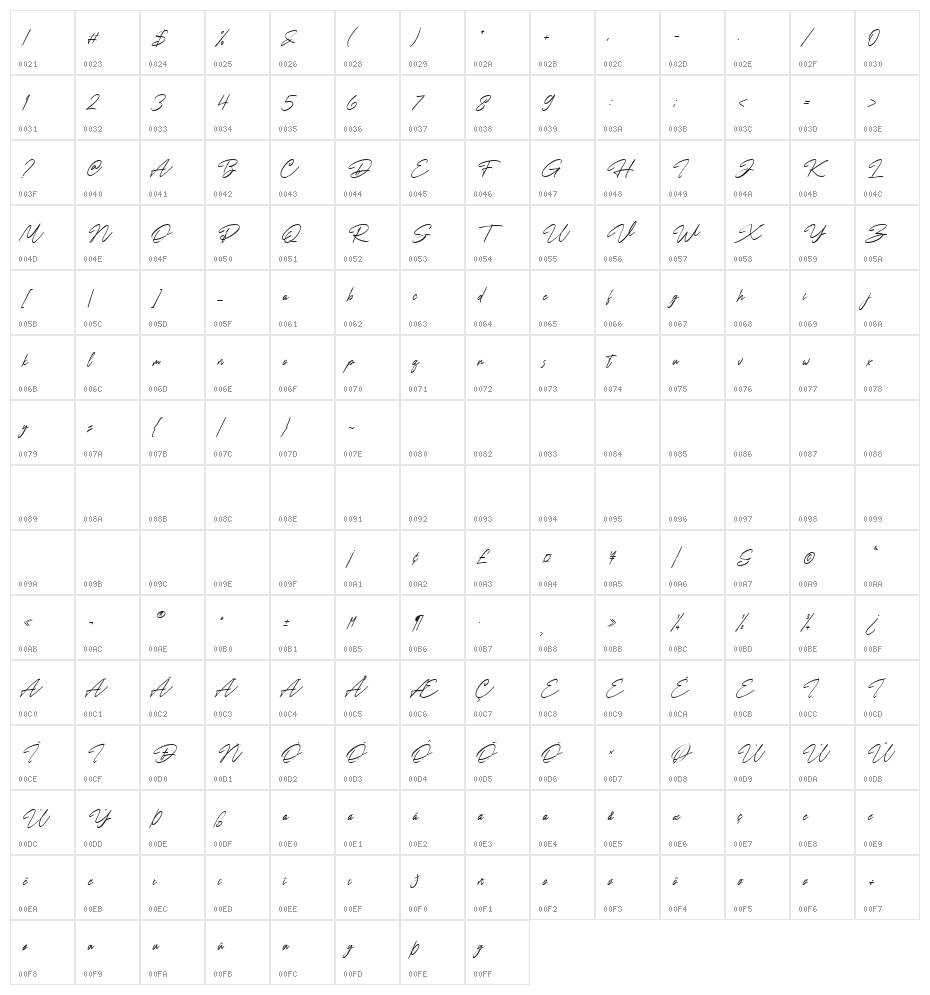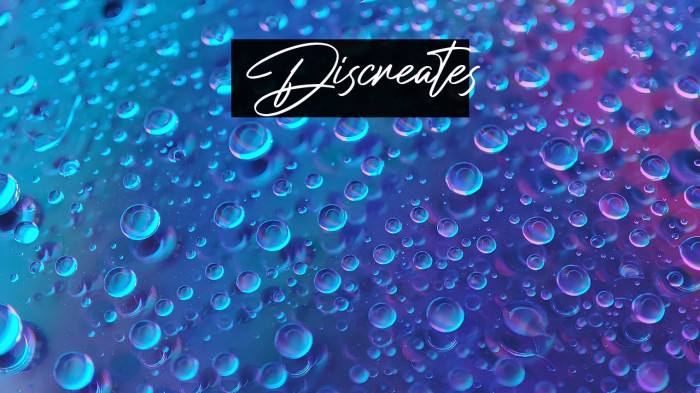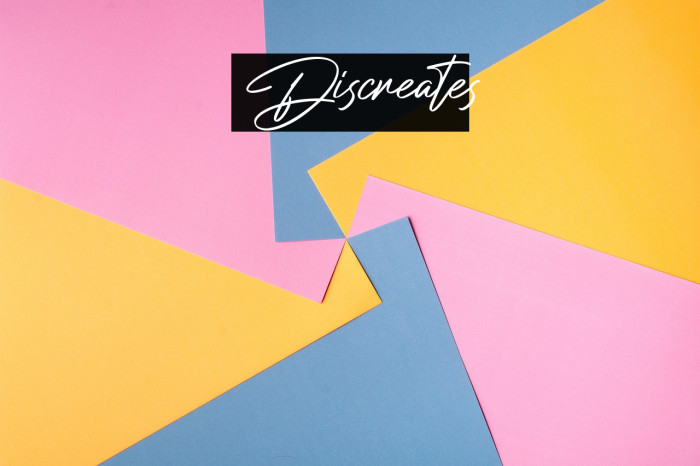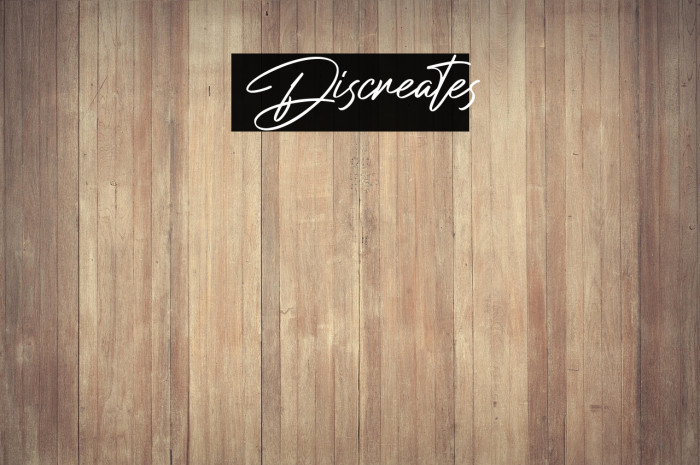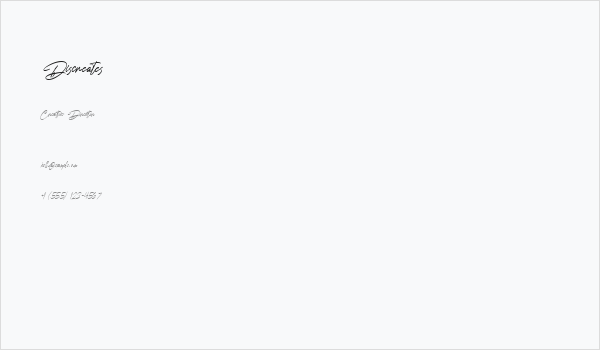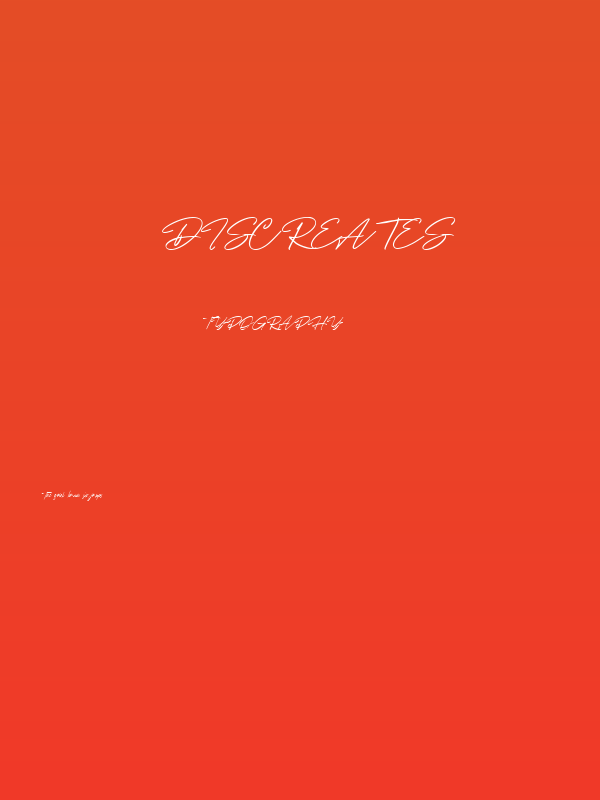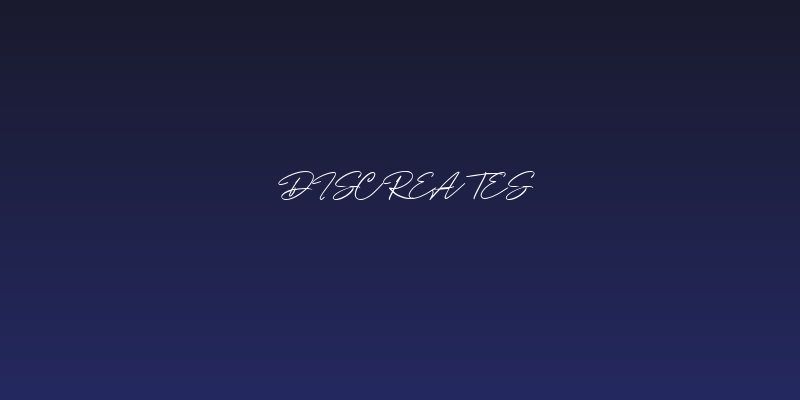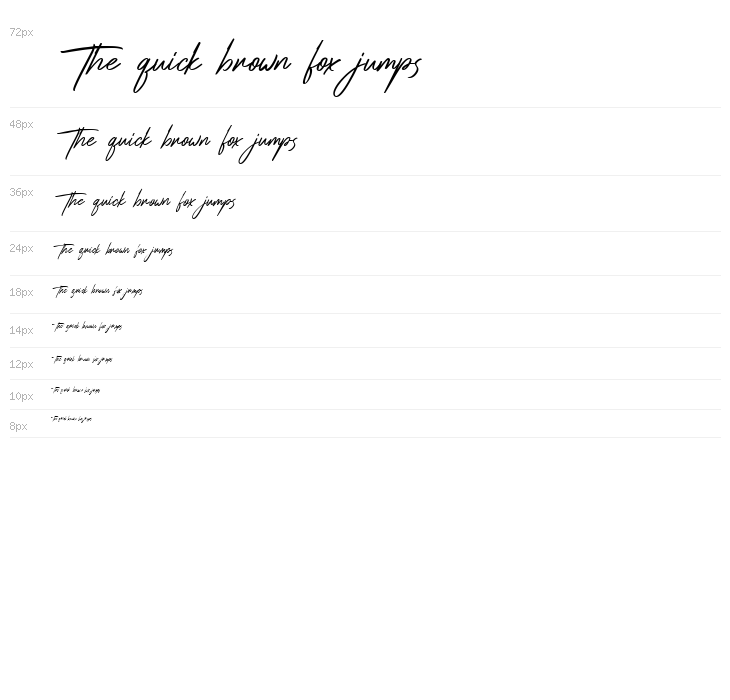
Discreates Font
Discreates Description
This elegant script font features fluid, cursive strokes that mimic natural handwriting. The uppercase letters are slightly larger and more ornate, while the lowercase letters maintain a consistent flow with gentle curves. Numbers and special characters are designed to complement the overall style, maintaining the same handwritten aesthetic. The font's delicate lines and smooth connections between characters give it a sophisticated and graceful appearance, making it ideal for projects that require a personal touch.
| Overall Style | Elegant |
| Use Case | Logos, Invitations, Personal branding |
| Proposed Projects | Ideal for wedding invitations, greeting cards, personal branding, and elegant logos. |